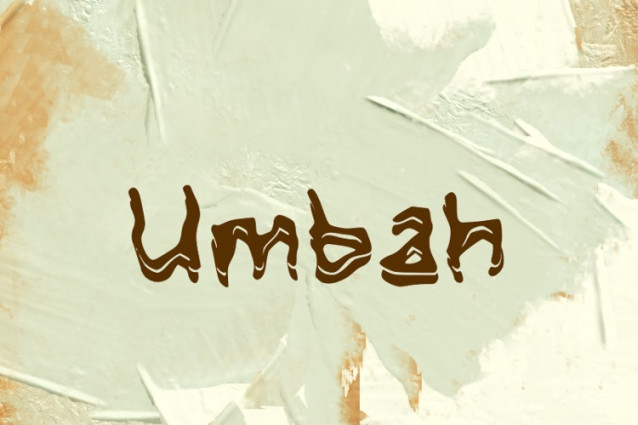
Umbah Font
Umbah Font is a chunky, comic, and cartoon display font. With its neat and joyful personality, this font will enhance any project you wish to create!